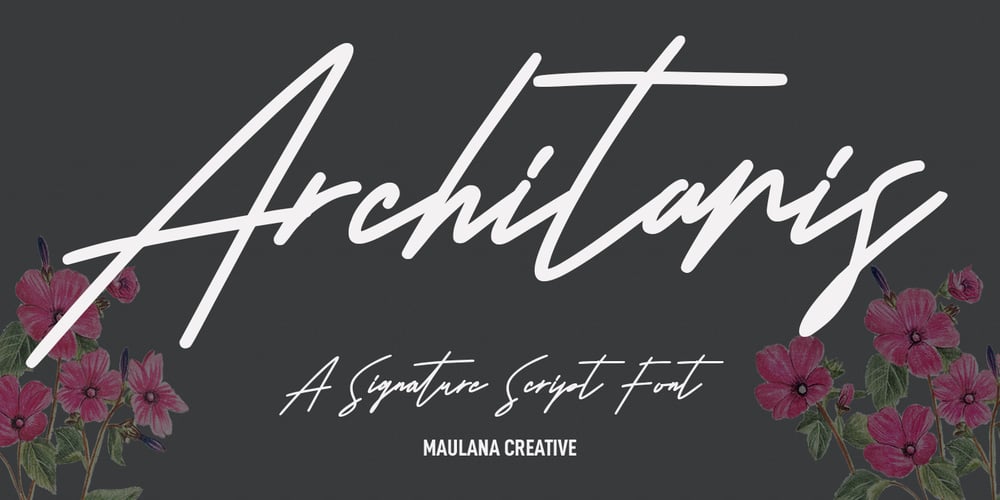
Architaris
Architaris font
Architaris Font Family was designed by Gilang Maulana and published by Maulana Creative. Architaris contains 1 styles and family package options. Architaris is a fancy handwritten script font. With medium contrast stroke, fun character with a bit of ligatures and alternates. To give you an extra creative work. Architaris font support multilingual more than 100+ language. This font is good for logo design, Social media, Movie Titles, Books Titles, a short text even a long text letter and good for your secondary text font with sans or serif. Make a stunning work with Architaris font. Cheers,Maulana Creative